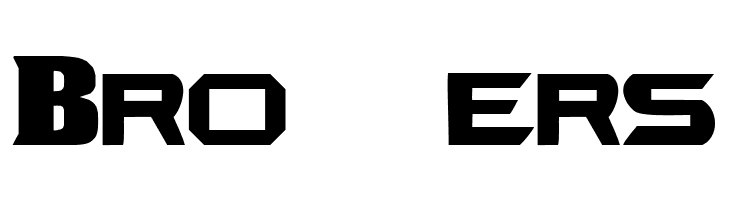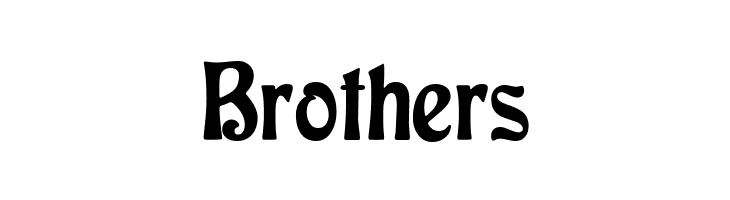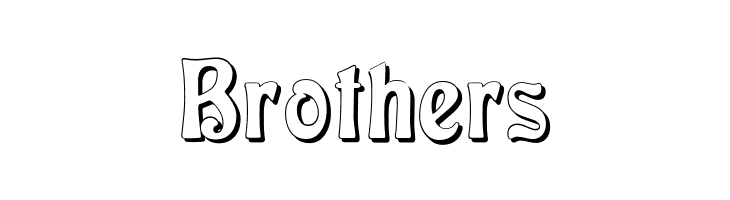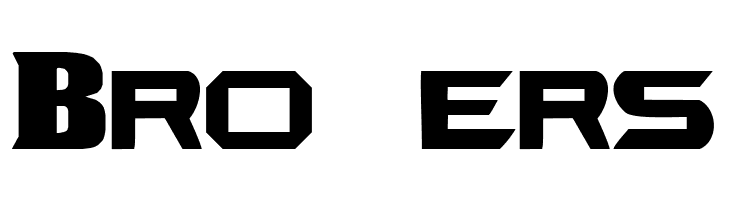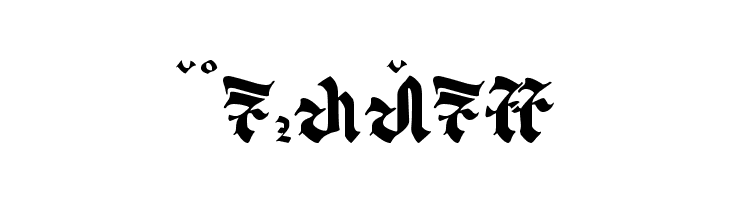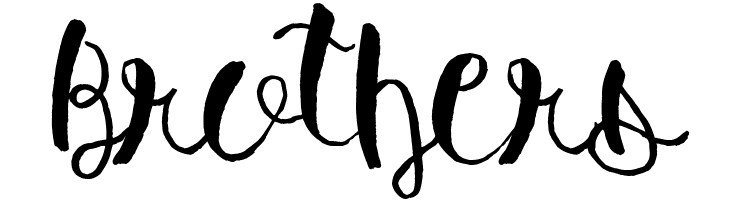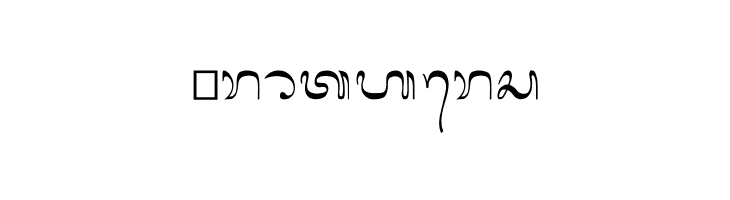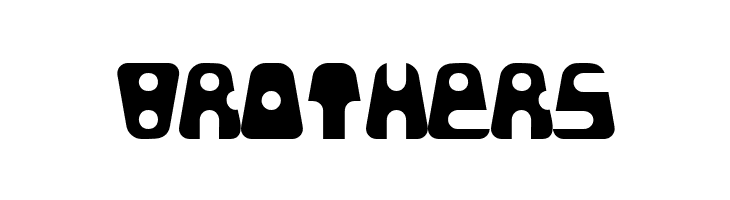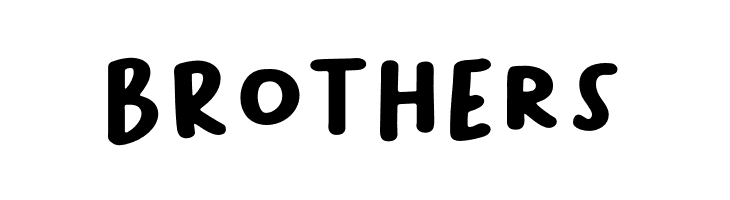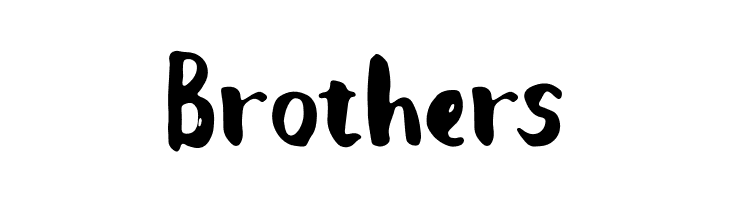
A graceful and elegant script font with flowing, cursive lines and sophisticated curves.
A playful, bold font with a hand-drawn, rounded style.
A bold, angular font with a geometric and industrial design.
A playful, bold handwritten font with rounded, smooth letterforms.
A bold, stencil-style font with geometric shapes and clear cutouts.
A bold, brush-style font with dynamic, expressive strokes.
A bold, brushstroke font with an energetic and artistic style.
A bold, playful, hand-drawn font with a friendly and artistic style.
A bold, rustic font with a textured, vintage appearance.
An elegant, cursive script font with flowing lines and graceful curves.
A pixelated, geometric font inspired by retro digital displays.
A graceful and flowing script font with a handwritten style.
A bold, decorative font with a playful yet structured design.
A bold, decorative font with a medieval-inspired aesthetic.
A bold, shadowed font with decorative flair and three-dimensional appearance.
A dynamic, handwritten font with expressive, fluid strokes.
A lively handwritten font with fluid, cursive strokes.
A lively and elegant script font with flowing, connected letterforms.
A bold, brush script font with dynamic, hand-painted strokes.
A bold, energetic script font with fluid, interconnected strokes.
A graceful and elegant cursive font with flowing, intricate characters.
A whimsical, artistic handwritten font with flowing, interconnected letterforms.
A whimsical and artistic handwritten font with fluid, dynamic strokes.
An elegant script font with flowing cursive style and intricate swashes.
A bold, cursive script font with dynamic, flowing strokes and elegant connections.
A bold, energetic script font with dynamic curves and a lively style.
A bold, expressive script font with flowing, cursive letterforms.
A playful, casual handwritten font with an organic flow and friendly appearance.
A lively and flowing script font with elegant, cursive letterforms.